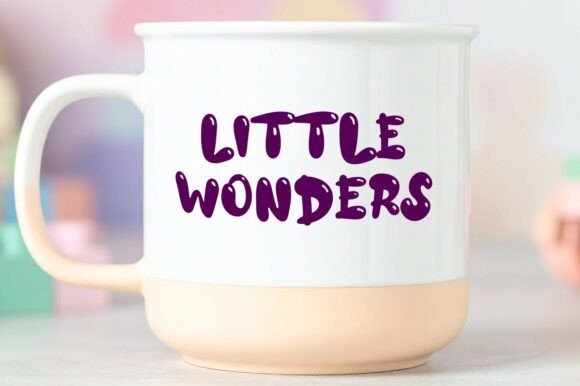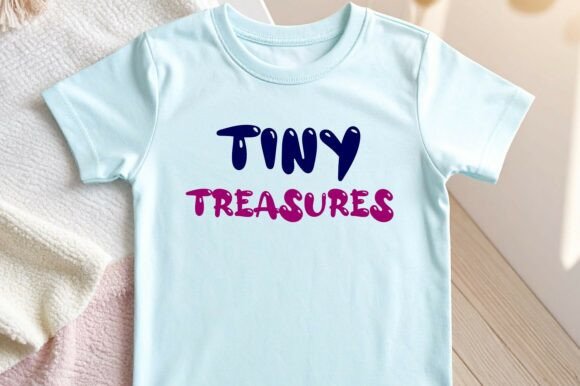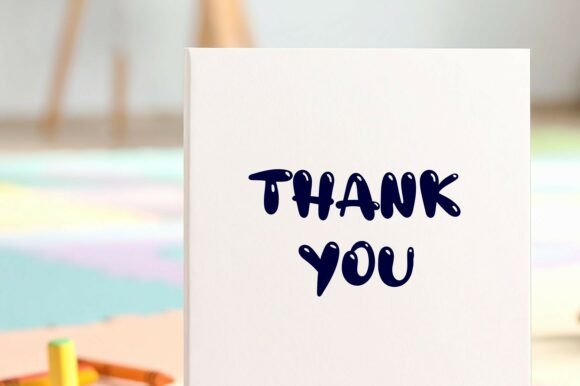
Introduction to Alloy Ink Font
Alloy Ink is a bold, playful, and distinctively textured font that immediately captures attention.
| 👤 Author | wep – Wahyu Eka Prasetya |
It gives off a strong, artistic, and somewhat grungy or hand-drawn vibe, making it perfect for designs that want to stand out with an edgy yet fun personality What makes it good or different.
Key Features of Alloy Ink Font